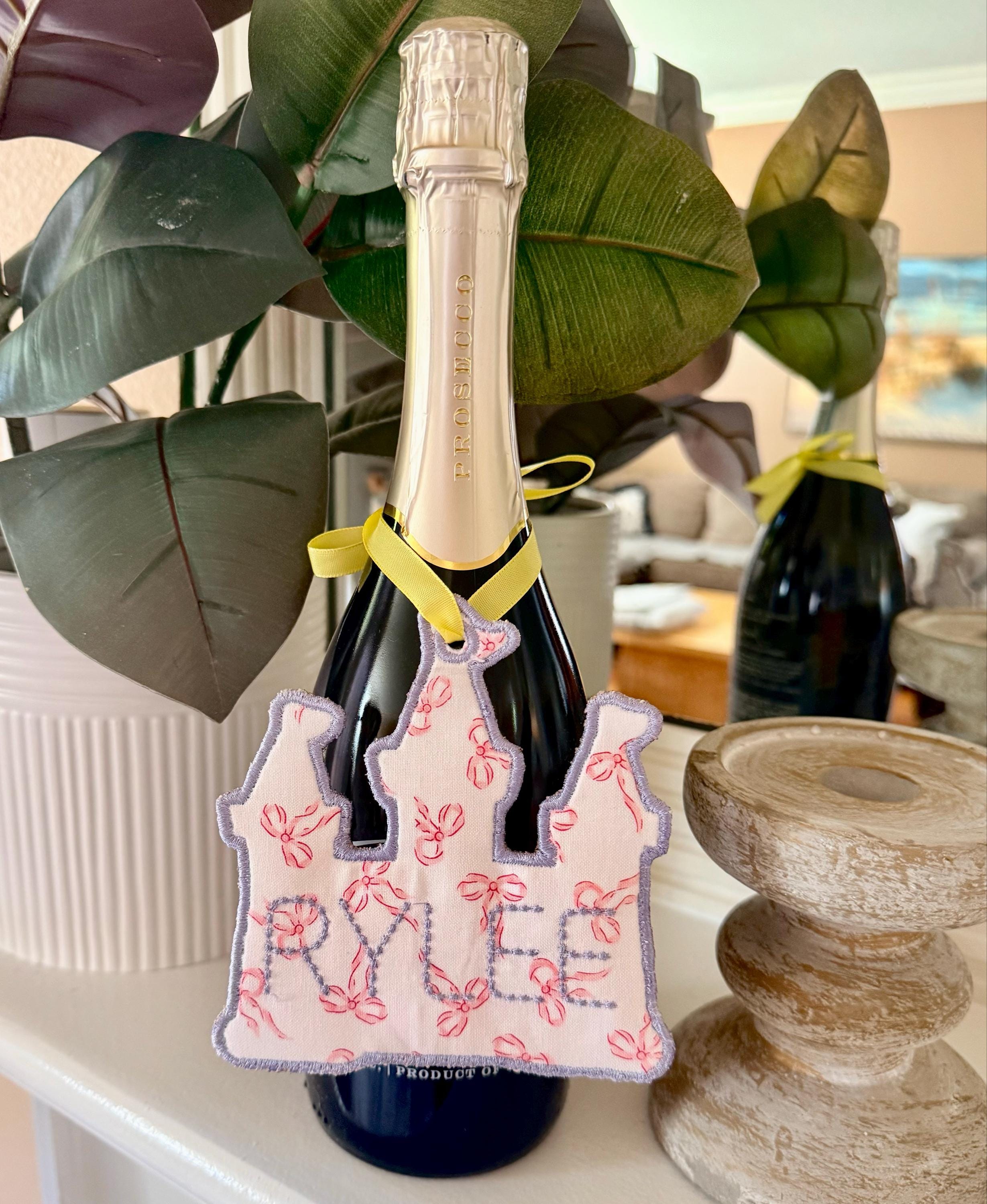
Hand stitch effect Block FONT machine embroidery designs in assorted mini sizes alphabet letters playful kids name seed stitch, BX included
I love this file, it's so cute! I can't wait to use them 😊
Very clean font when stitched out.
Stitches out beautifully as always!
Super cute!!!!! Stitched out beautifully. Customer loved their monogramming!!!!